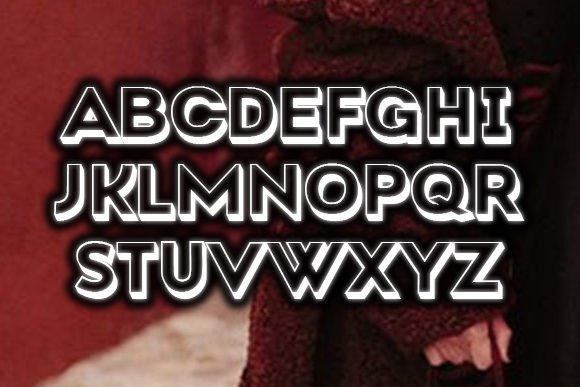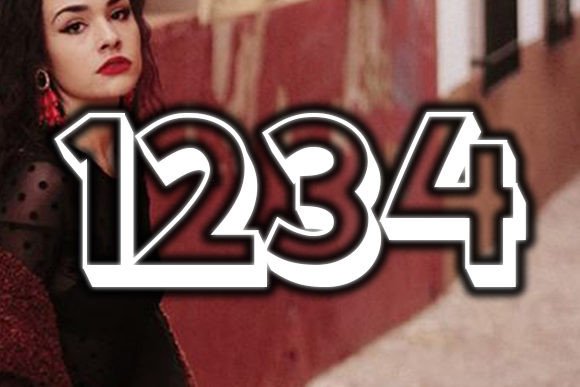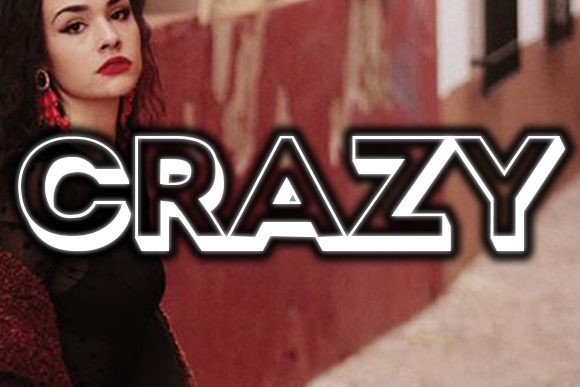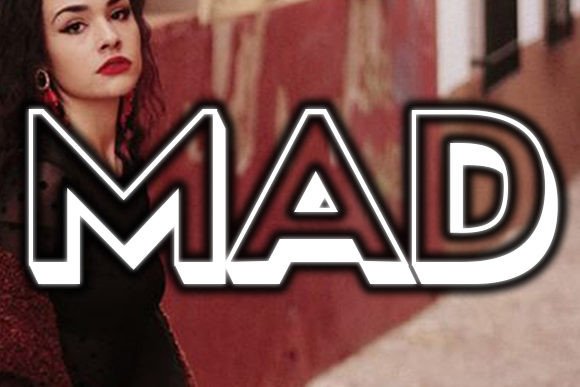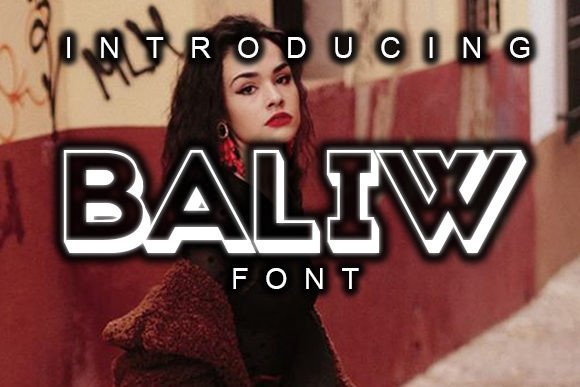
Baliw Font: The Ultimate 3D Typeface for Your Creative Projects
Are you tired of using the same old fonts for your designs? Look no further! Introducing Baliw Font, a striking 3D typeface that will take your work to the next level. With its unique and eye-catching design, Baliw Font is perfect for banners, headlines, and any other project that requires a bold statement.
What Makes Baliw Font So Special?
Baliw Font is not just another font – it’s an experience. Its 3D design gives it a level of depth and dimensionality that will make your work stand out from the crowd. Whether you’re a designer, craftsperson, or simply someone who loves to create, Baliw Font is the perfect tool to add some excitement to your projects.
Key Features of Baliw Font
- Striking 3D Design: Baliw Font’s 3D design is its most striking feature. It’s perfect for creating eye-catching banners, headlines, and other visual elements.
- Highly Versatile: Baliw Font can be used on a wide range of projects, from digital designs to print materials.
- Unique and Exclusive: Baliw Font is a unique and exclusive typeface that will give your work a distinctive look.
- Use it for Headlines and Titles: Baliw Font is perfect for headlines and titles, where its 3D design can really make an impact.
- Experiment with Colors and Textures: Baliw Font looks great in a variety of colors and textures. Experiment with different combinations to find the one that works best for your project.
- Combine it with Other Fonts: Baliw Font can be combined with other fonts to create a unique and interesting look.
- Stand Out from the Crowd: Baliw Font’s unique design will help your work stand out from the crowd.
- Add Visual Interest: Baliw Font’s 3D design adds visual interest to any project.
- Increase Engagement: Baliw Font’s bold and eye-catching design can help increase engagement with your audience.
In conclusion, Baliw Font is an awesome striking 3D typeface that will inspire your work. With its unique and eye-catching design, Baliw Font is perfect for banners, headlines, and much more. Whether you’re a designer, craftsperson, or simply someone who loves to create, Baliw Font is a must-have font that will take your work to the next level.